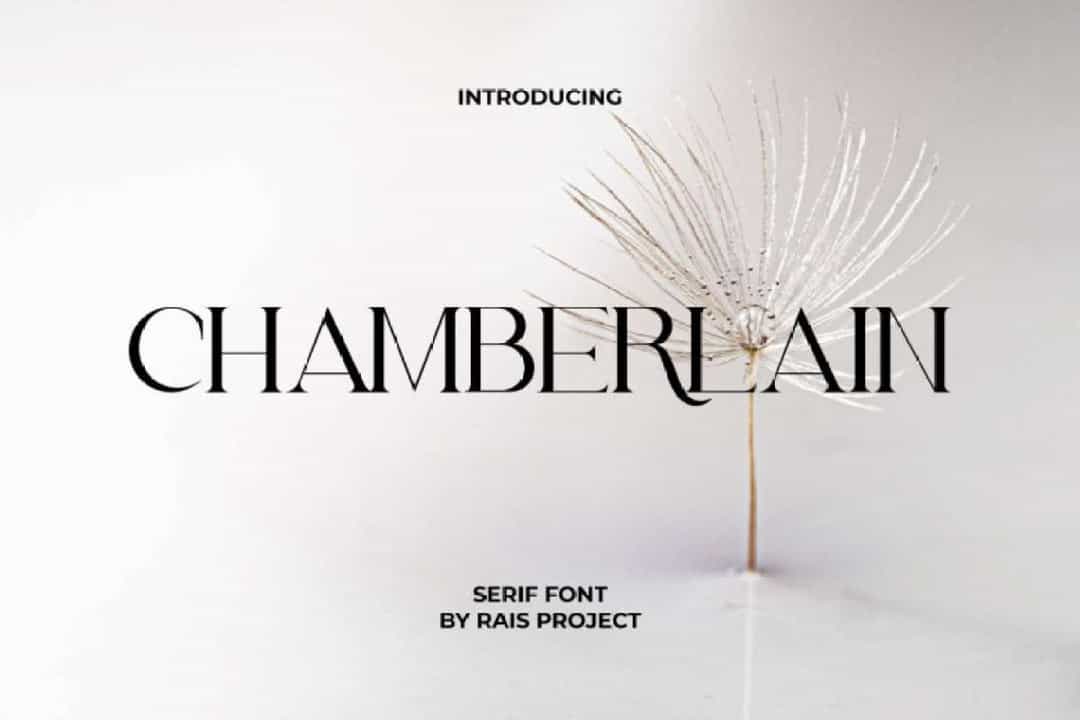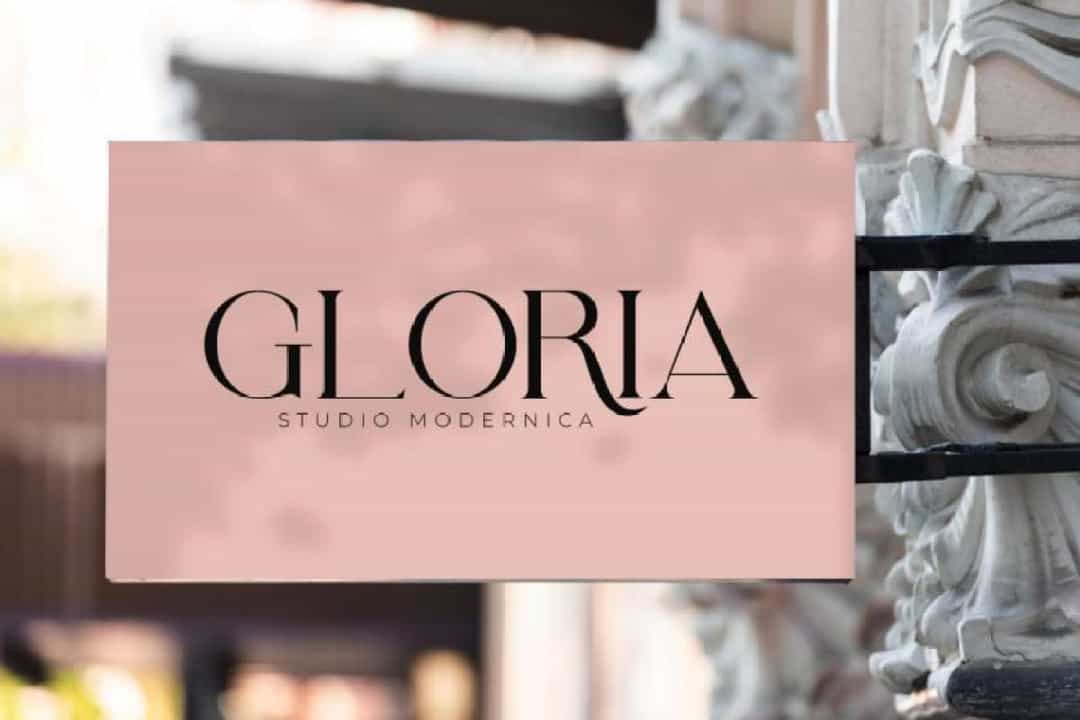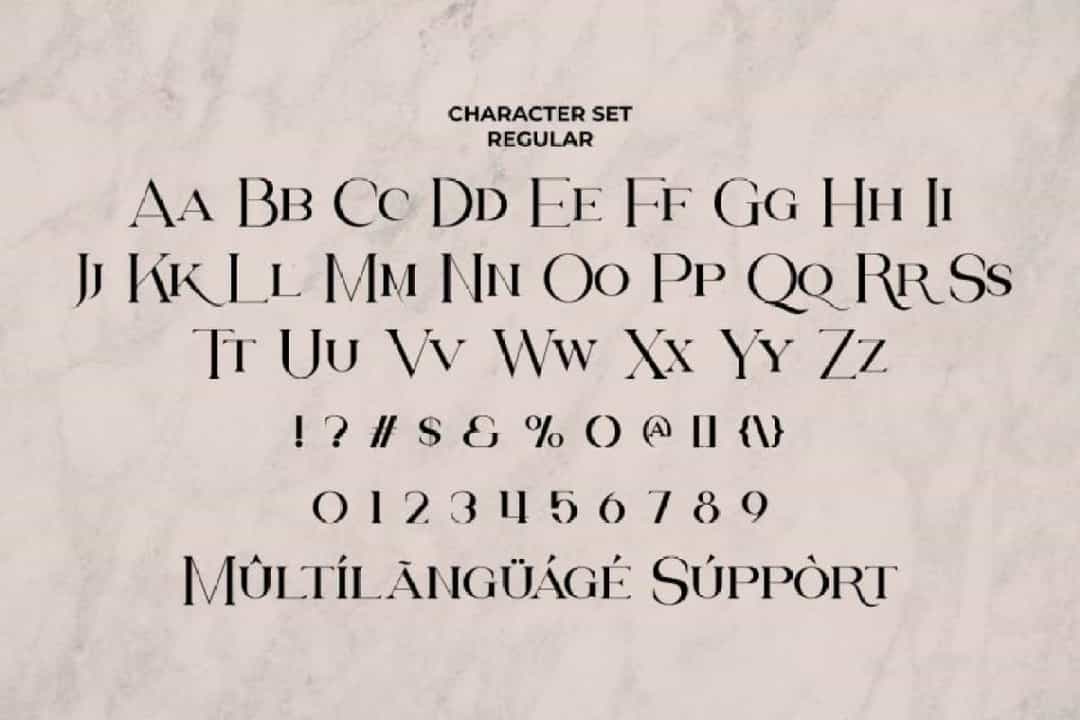
Chamberlain Font is an uncluttered display serif typeface family designed by Rais Project and features minimalist style design – ideal for casual fashion, beauty, magazine wedding publications and magazine layout.